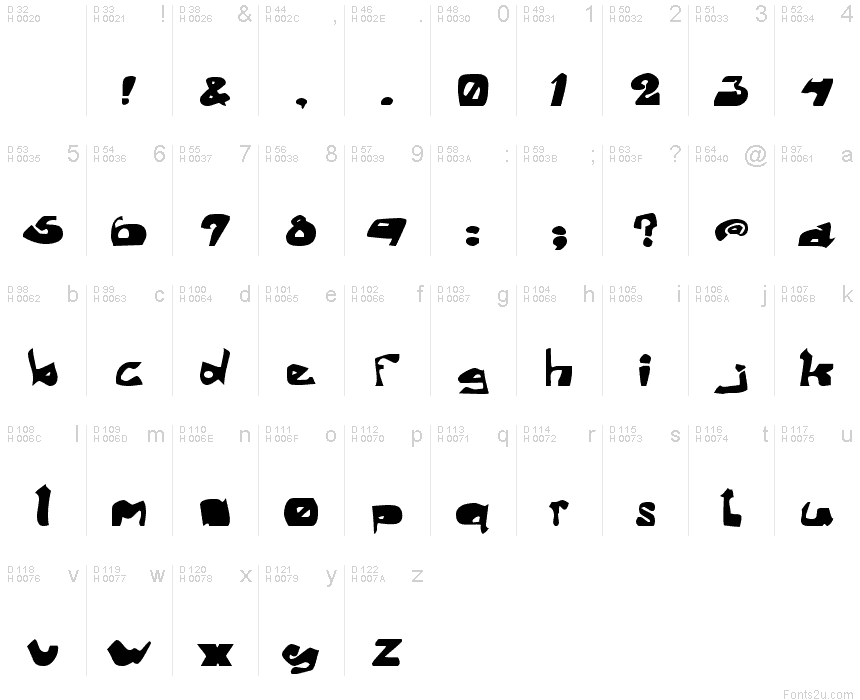
This is a font...this font is on high doses of nicotine and caffine...treat with care...free for your pleasures of use...form the Xerotype (x) design group etc...etc...